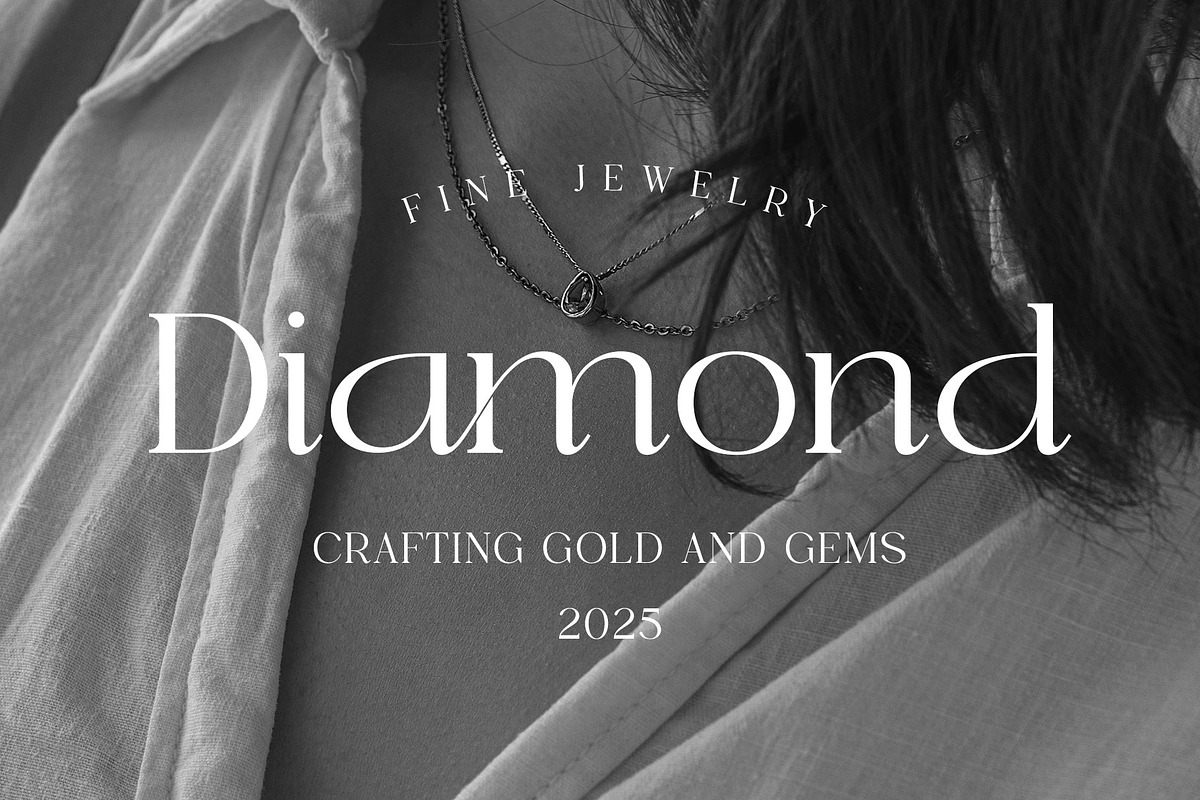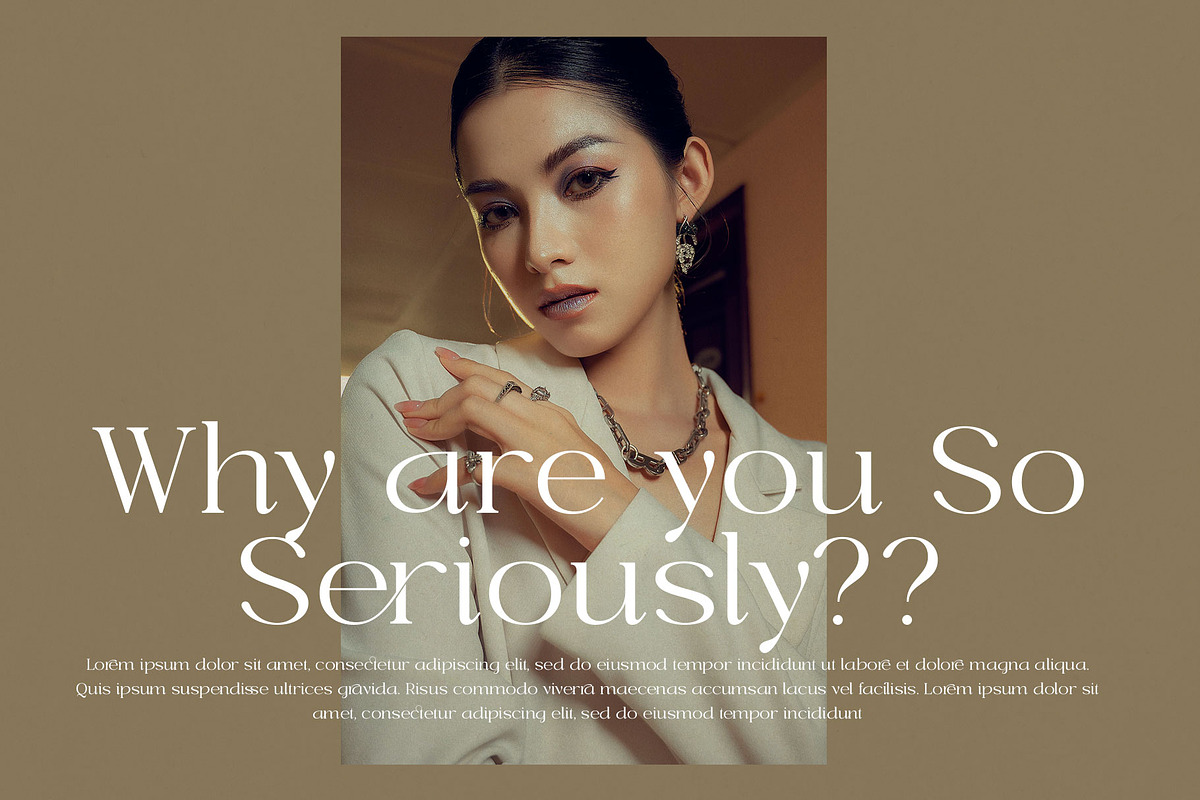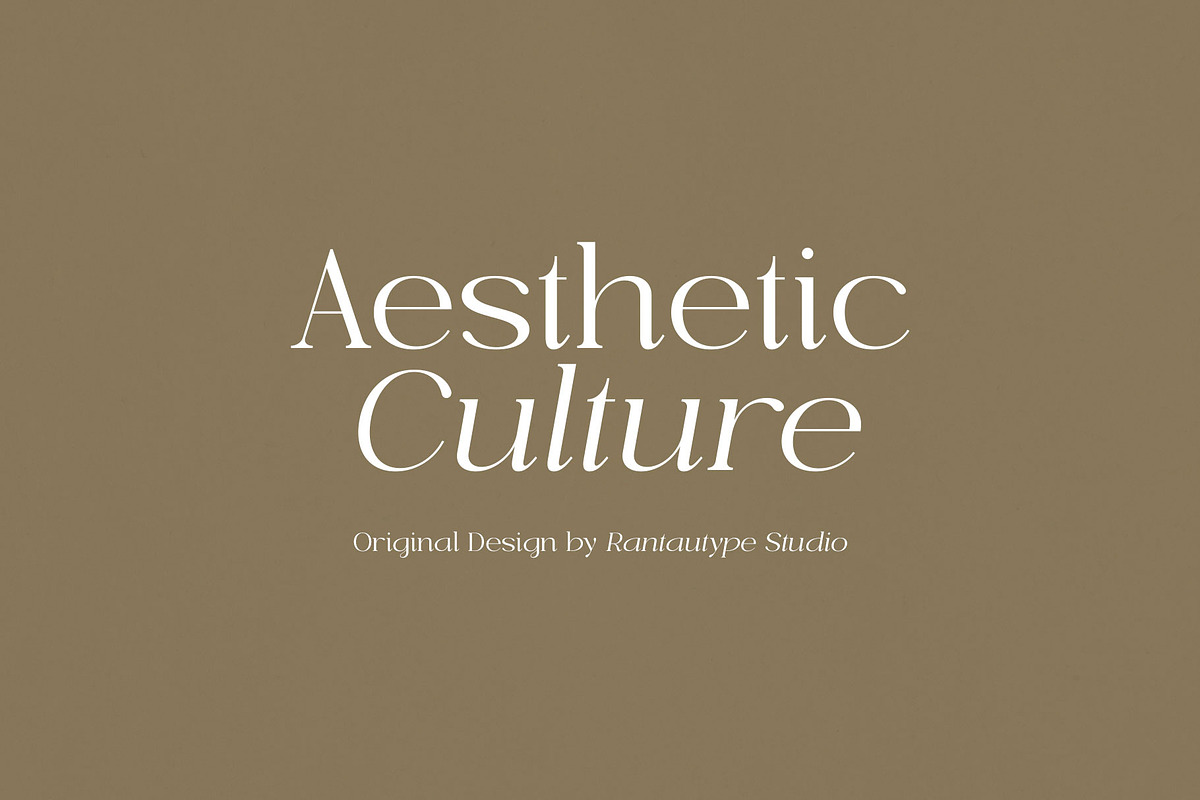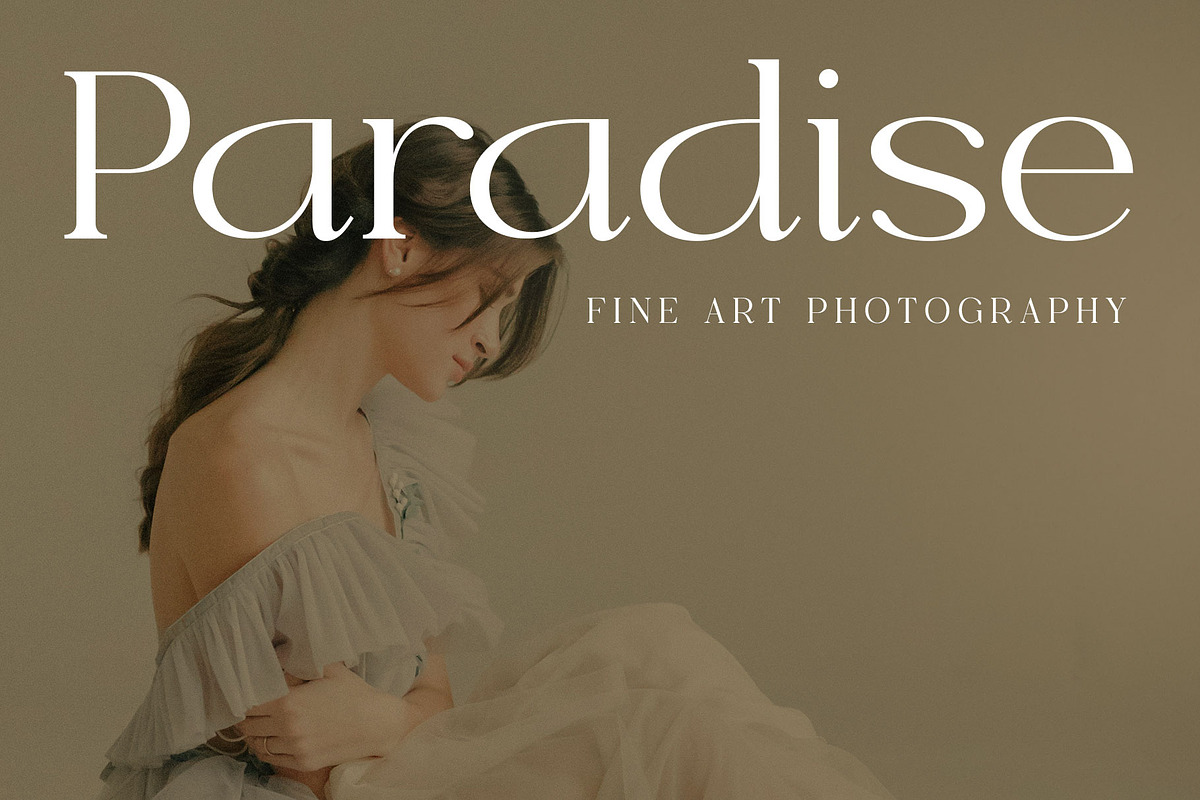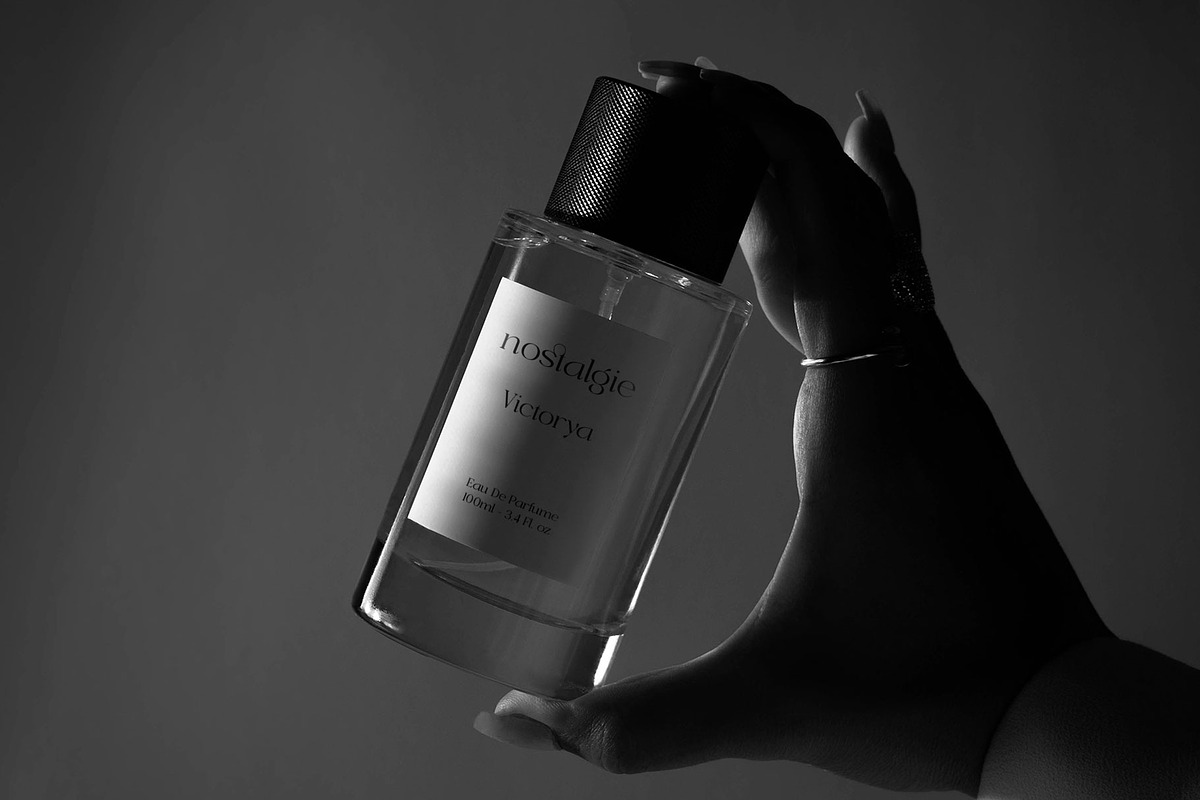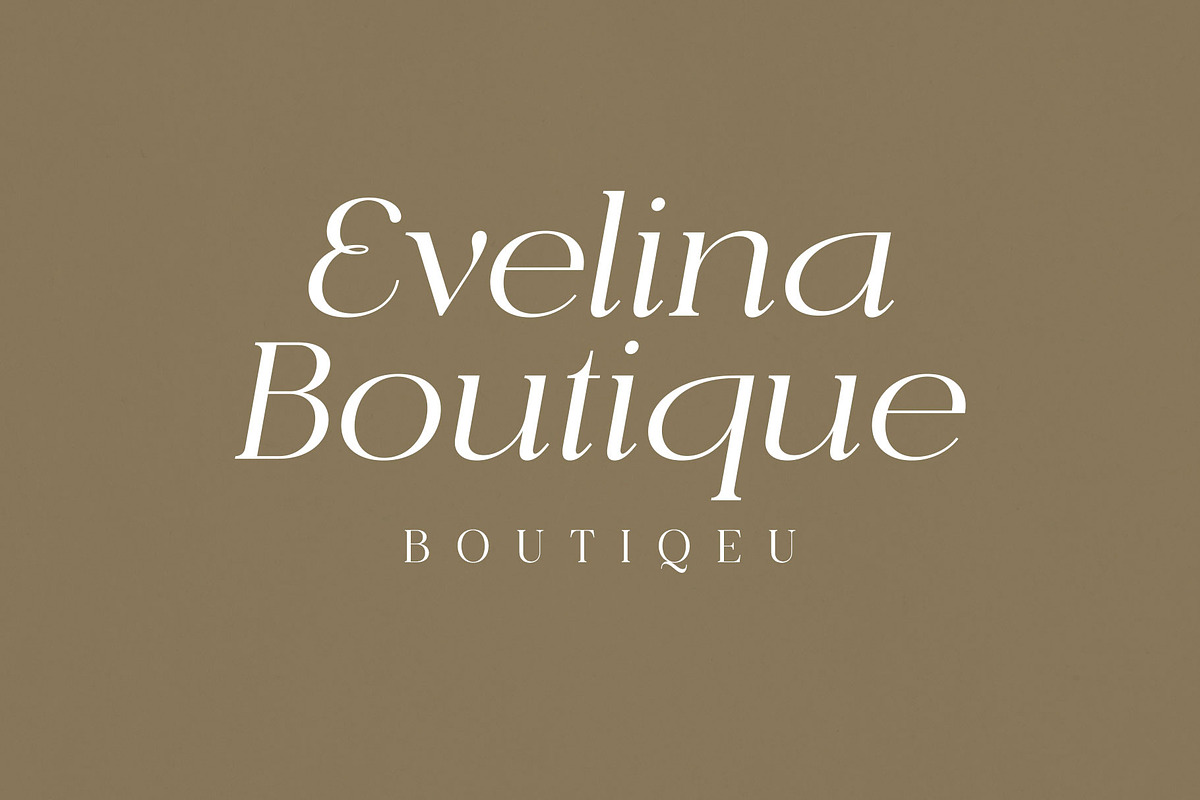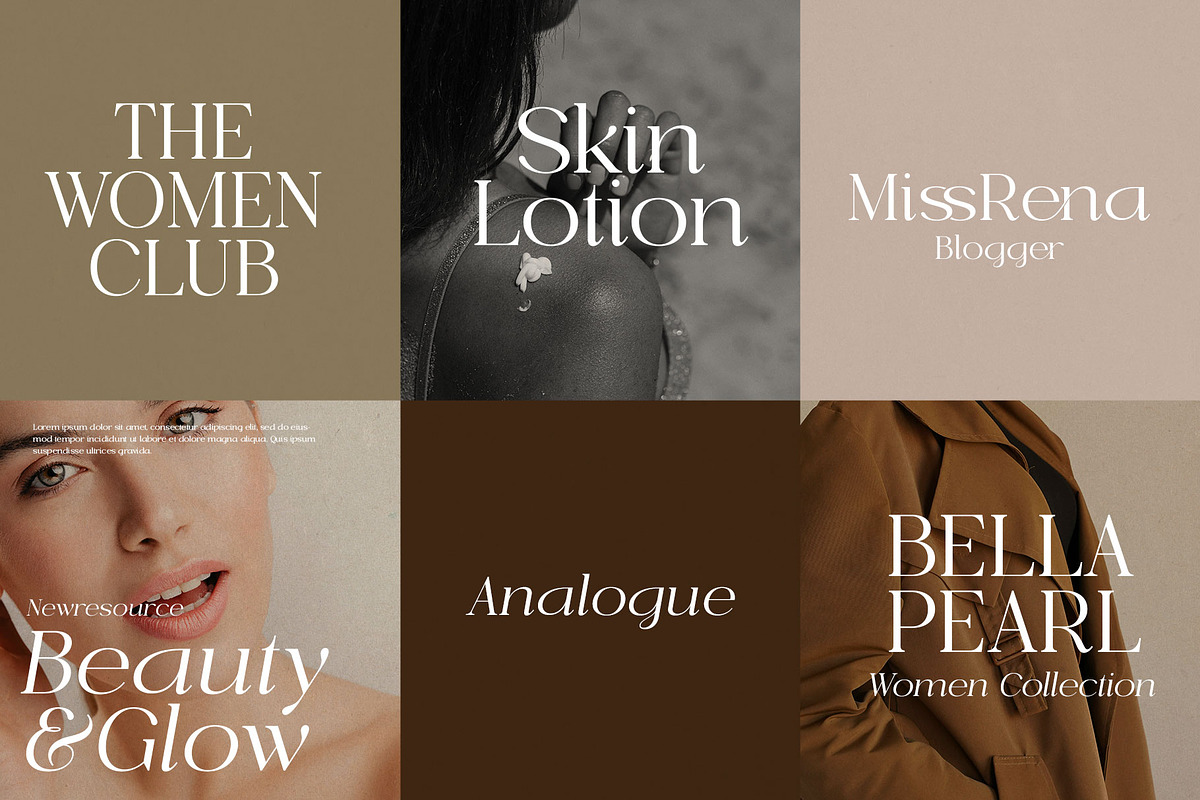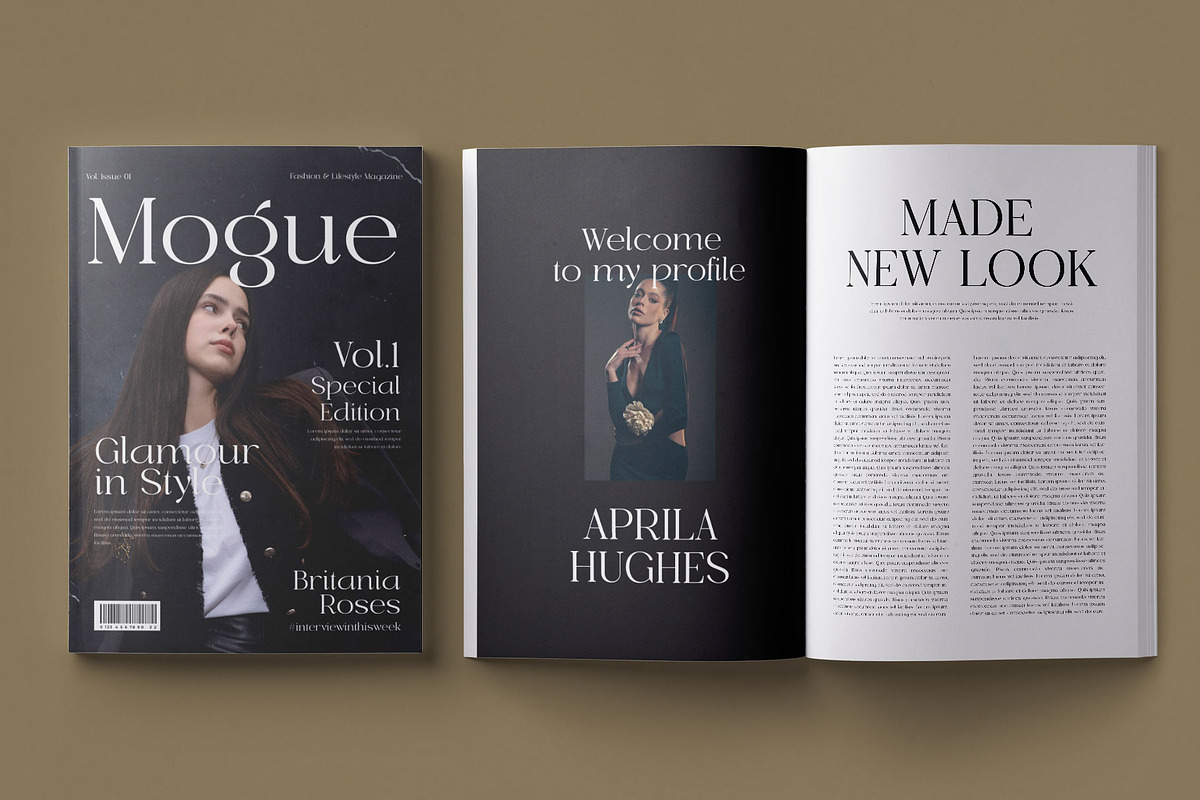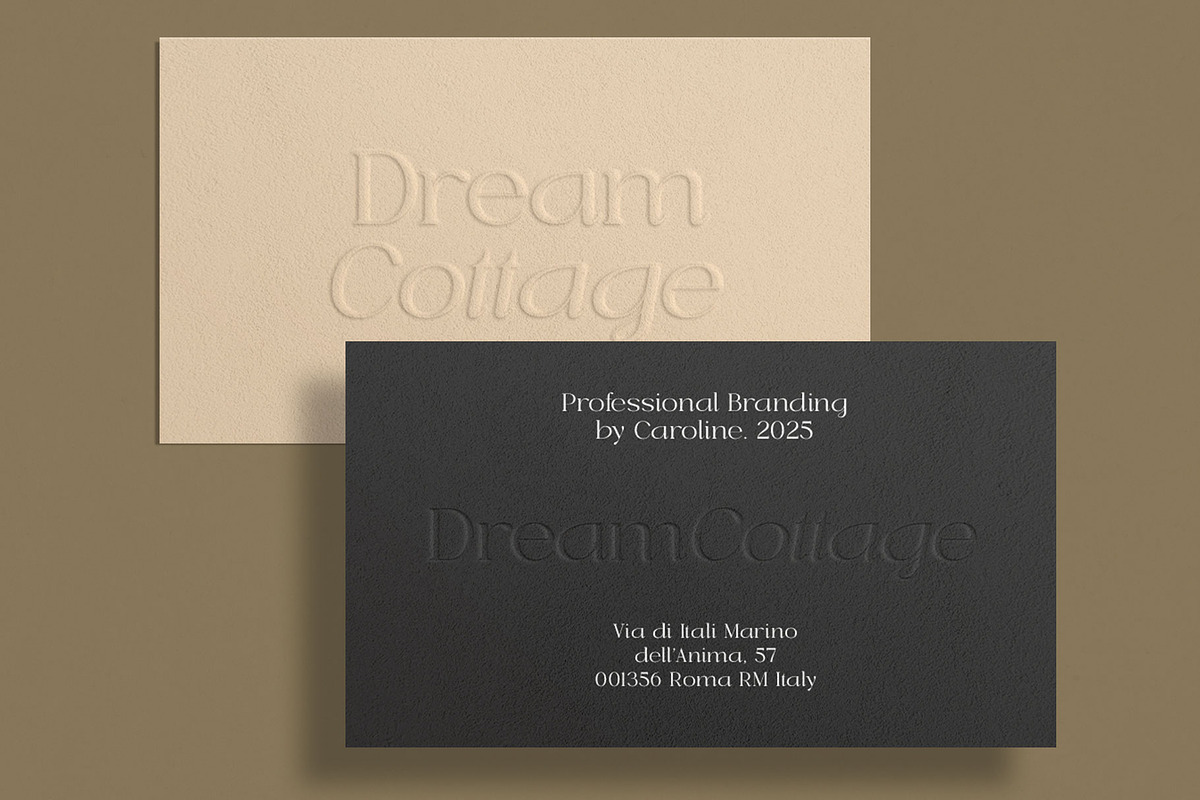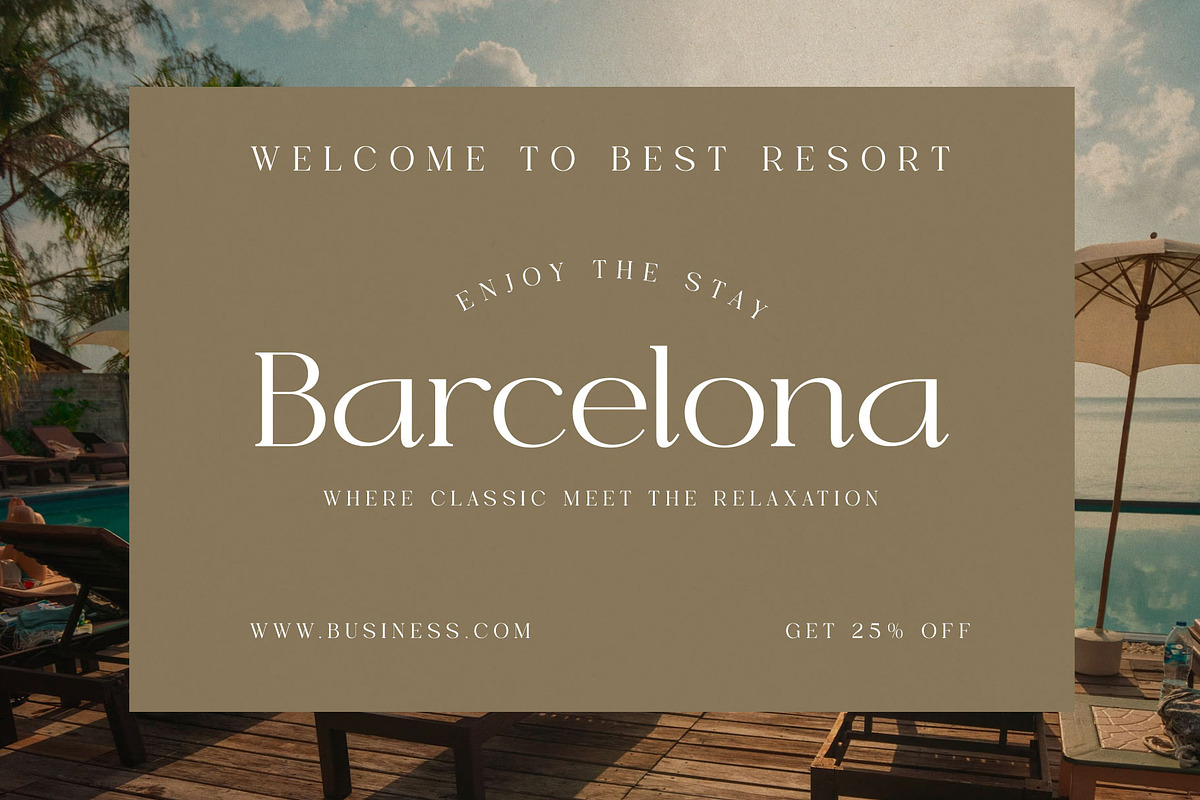
Morelga Modern Serif Font
Morelga is a modern serif font that blends timeless elegance with contemporary sophistication. Morelga is a perfectly choice for any creative endeavor, chic, lifestyle design such as logotype, advertisements, watermark on photography, stationery, branding project, display and magazine, invitation, corporate brand, product design, label, business project and many other project with modern touch.
- Alternate and ligature